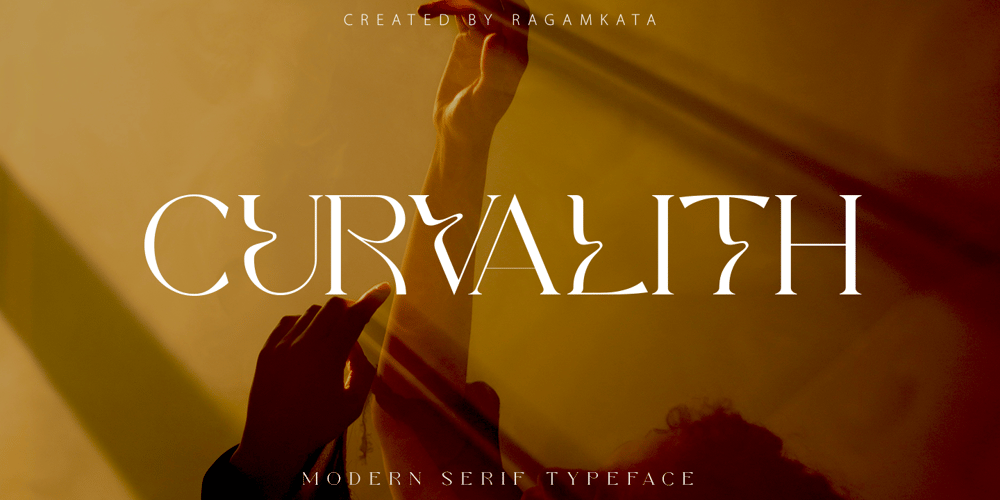
Curvalith Font Family was designed by Yogiswhara Dio Prakoso Riadi and published by RagamKata. Curvalith contains 2 styles and family package options. Curvalith rich serif with letters that seem modern unique serif typefaces. Perfect for branding, logos, invitations, mastheads, and more. Mariegold has 15 ligature on Uppercase and Lowercase thus making it look more attractive and unique